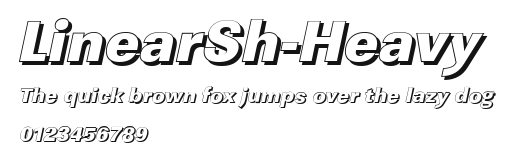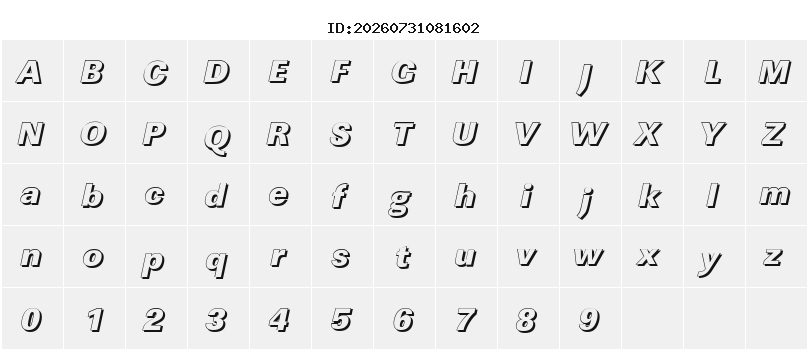
• Font Name: LinearSh-Heavy
• Designer: SoftMaker Software GmbH
About LinearSh-Heavy.ttf
LinearSh-Heavy.ttf is a modern, elegant sans-serif font designed for ultimate readability and visual harmony. Perfect for branding, headlines, web design, and print materials.